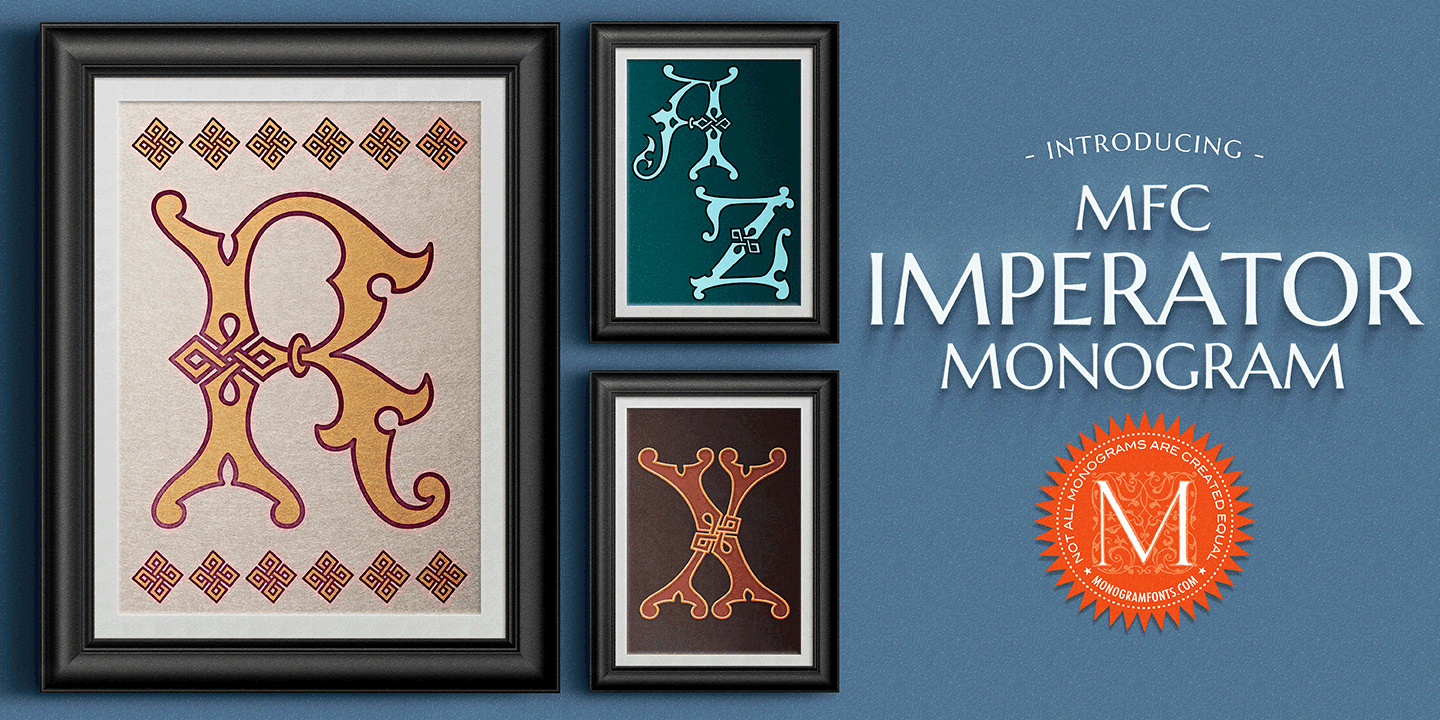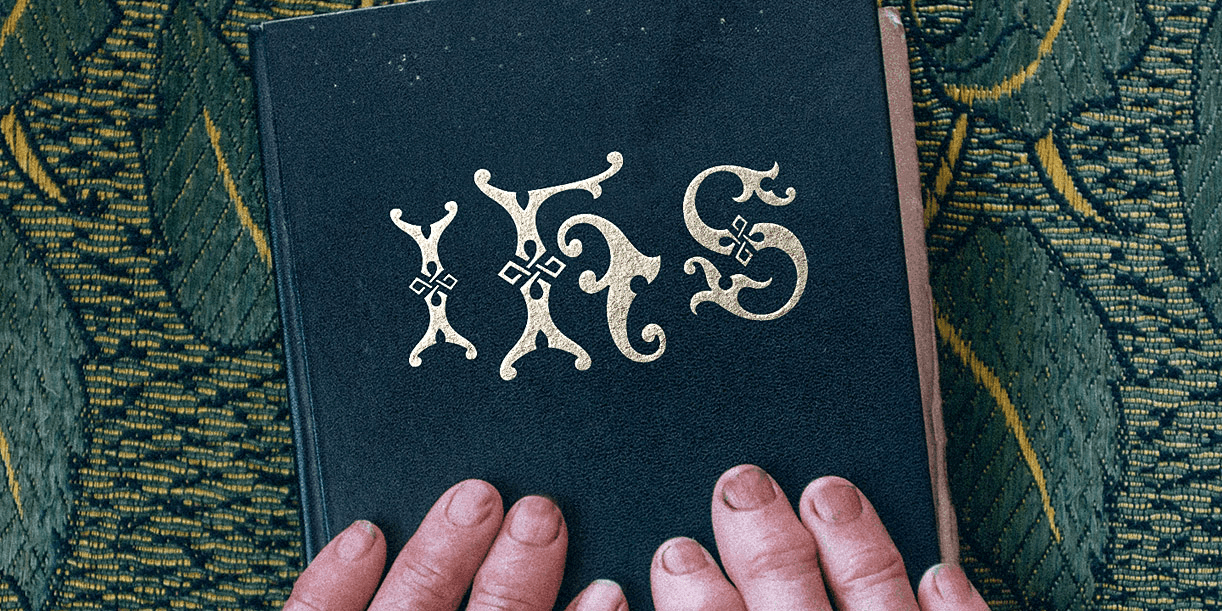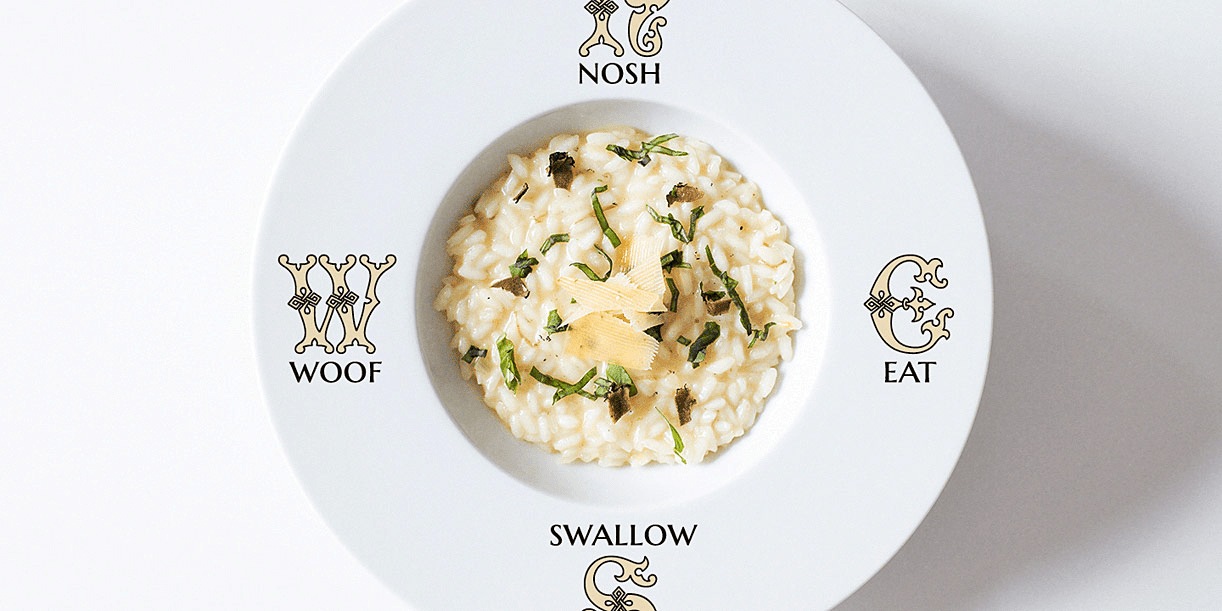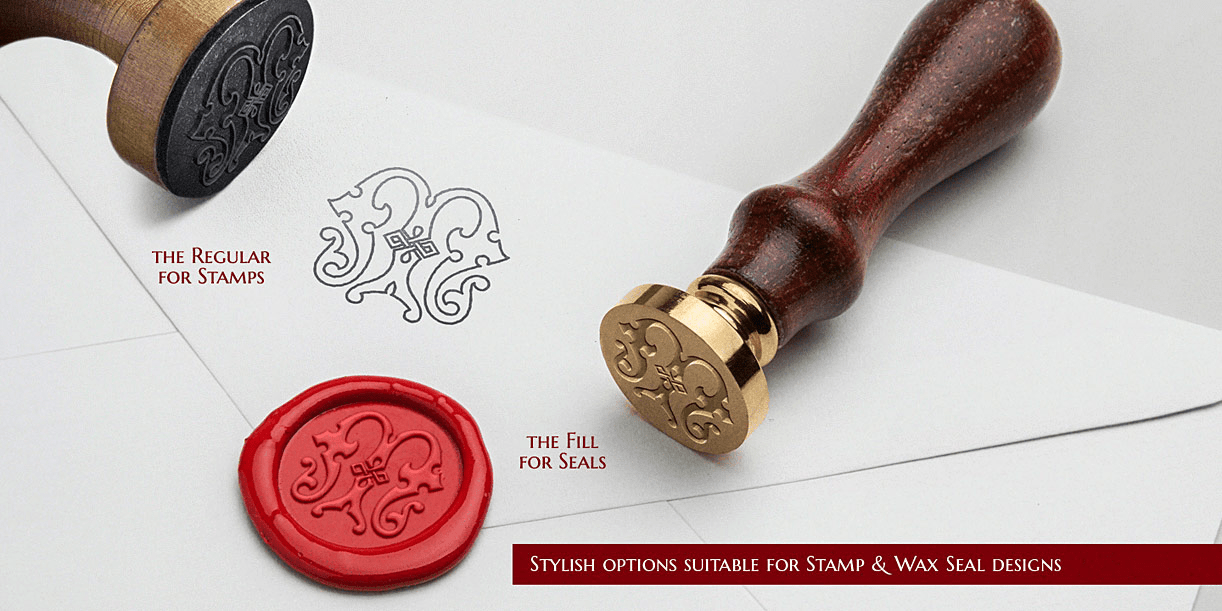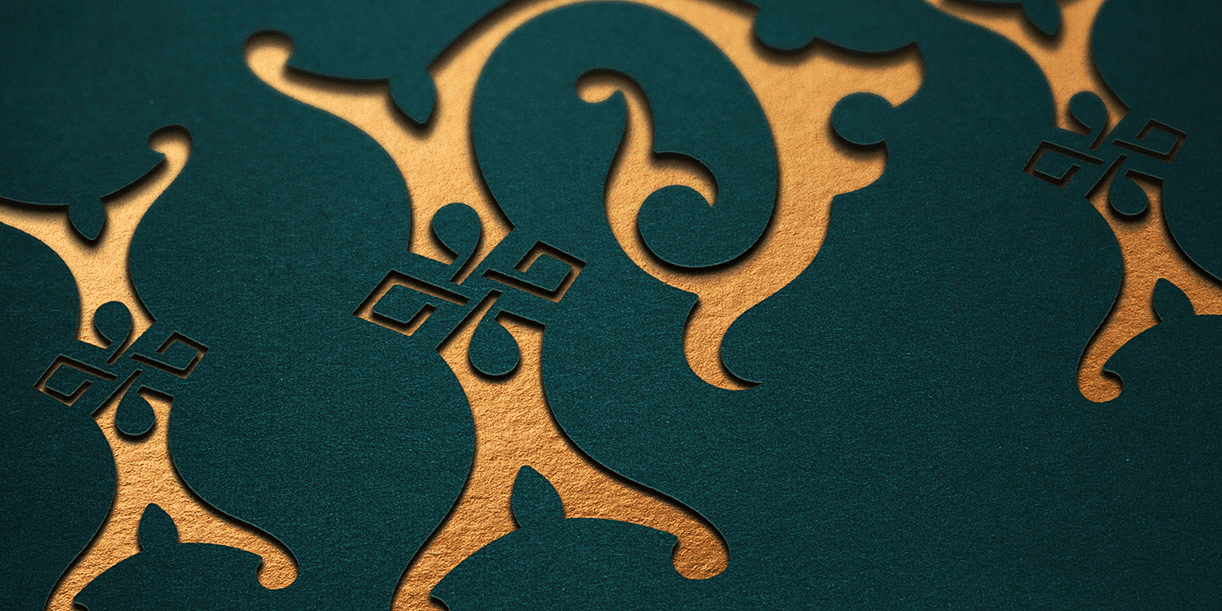
MFC Imperator Monogram
The source of inspiration for MFC Imperator Monogram is an alphabet set from the book, "Monograms and Alphabets for Combination" by Dollfus Mieg & Cie, first published in the 1890's.
Originally developed as a Capitals & Numerals only set with several ornaments to be used for embroidery lettering, this elegant lettering style is now digitally remastered and updated with smallcaps for modern monogram typesetting use for additional functionality beyond its original intentions. We've extended the family to have chromatic options as well. Download and view the MFC Imperator Monogram Guidebook if you would like to learn a little more.